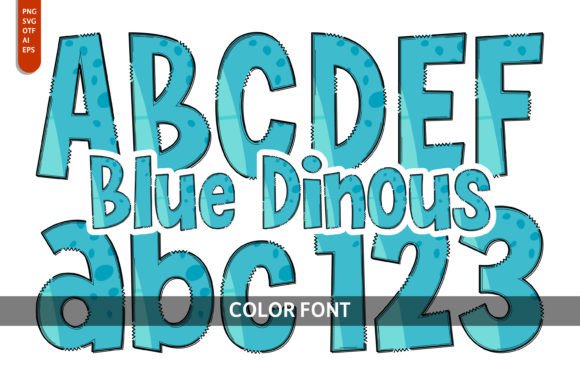
Journey through time with Blue Dinous Font, a font family that masterfully merges the grandeur of the dinosaur age with the vibrancy of modern design. Each letter, a captivating stroke of deep blue, evokes an aura of forgotten worlds and untapped mysteries. Prepare to be enthralled as this font's intricate details dance before your eyes, breathing life into your creative endeavors.
With Blue Dinous Font, your designs will be transformed into captivating landscapes where imagination reigns supreme. Let your words take flight on the wings of prehistoric elegance, whether crafting children's books that transport young minds to forgotten lands or creating posters that ignite the adventurous spirit.
Unleash your inner artist and bring greeting cards to life with Blue Dinous Font's enchanting embrace. Let invitations shimmer with an ancient allure, enticing guests to embark on a journey through time. This font is more than just a collection of characters; it's a gateway to a world where the past and present harmoniously coexist.
Elevate your TV displays with Blue Dinous Font, captivating audiences with its mesmerizing aura. Transform ordinary screens into portals to extraordinary worlds, where every word commands attention and every message resonates with the power of the ages. This font is not just for decoration; it's a storytelling tool, a means to weave tales that linger in the memory long after the screen fades to black.
With Blue Dinous Font, you hold the key to unlocking the secrets of the past and the wonders of the future. Its deep blue hues and intricate details will leave an indelible mark on your creative projects, ensuring that your designs stand out from the crowd. Embrace the magic of Blue Dinous Font and embark on a creative odyssey that will leave you and your audience spellbound.